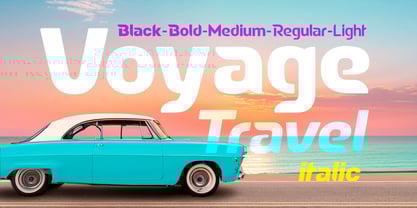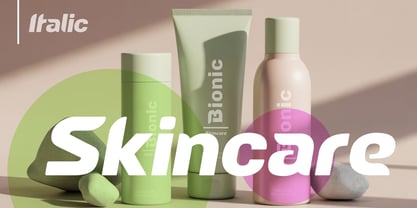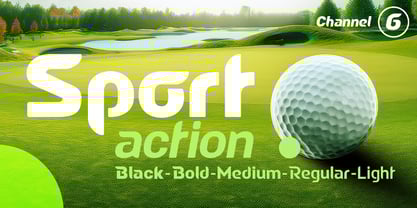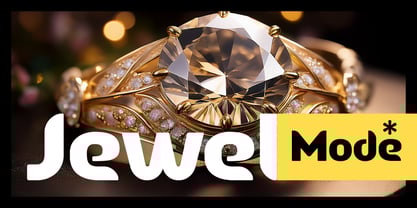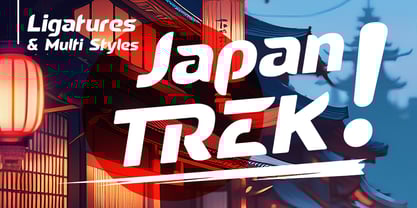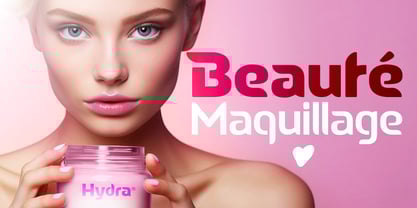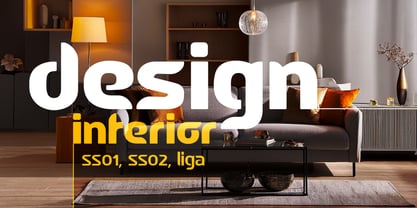
Delice Pro
The Delice Pro Font Family was designed by patrice provost and published by TypoStudio Pro. Delice Pro contains 10 styles and family package options. More about this family
A new, unclassifiable, and unique typeface. Its identity is rooted in 20th-century. With a very personal character, Delice Pro displays very good recognition combined with good readability. Its variety of fats offers a fairly wide range of choices, favoring either impact or softness. Delice Pro is very well suited to posters but also for web use. Create new graphic universes with Delice Pro and share your creations. Enjoy!